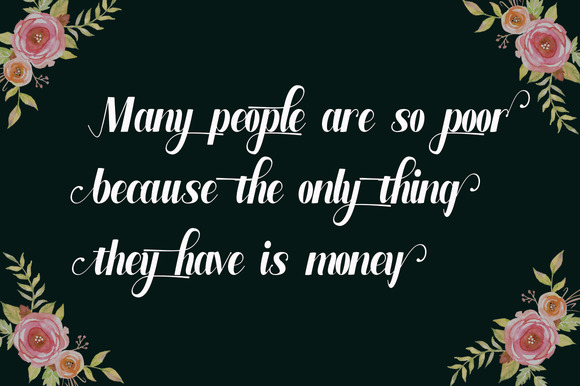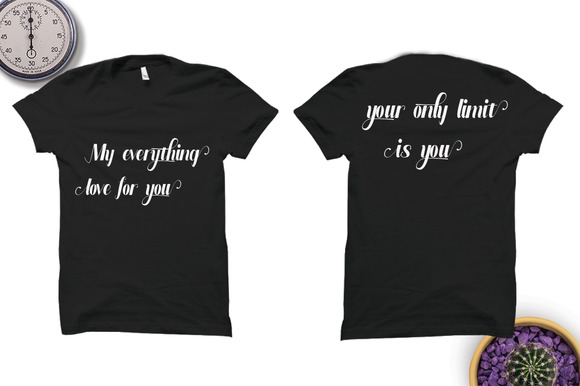
Annabelle Font
db-ku.com - Script & Handwritten -- Annabelle is a modern calligraphy typeface that has a characteristic wedding. It can be used for various purposes such as headings, logos, banners, posters, book covers, invitations,quotes and much more!